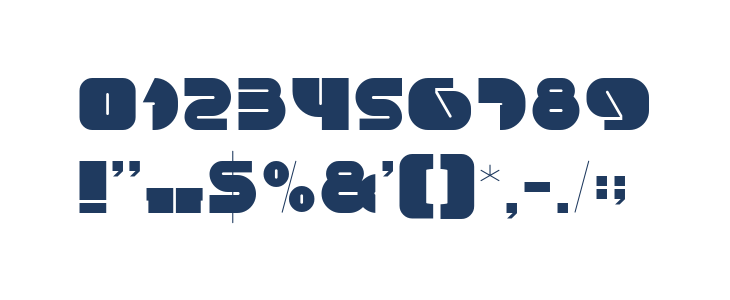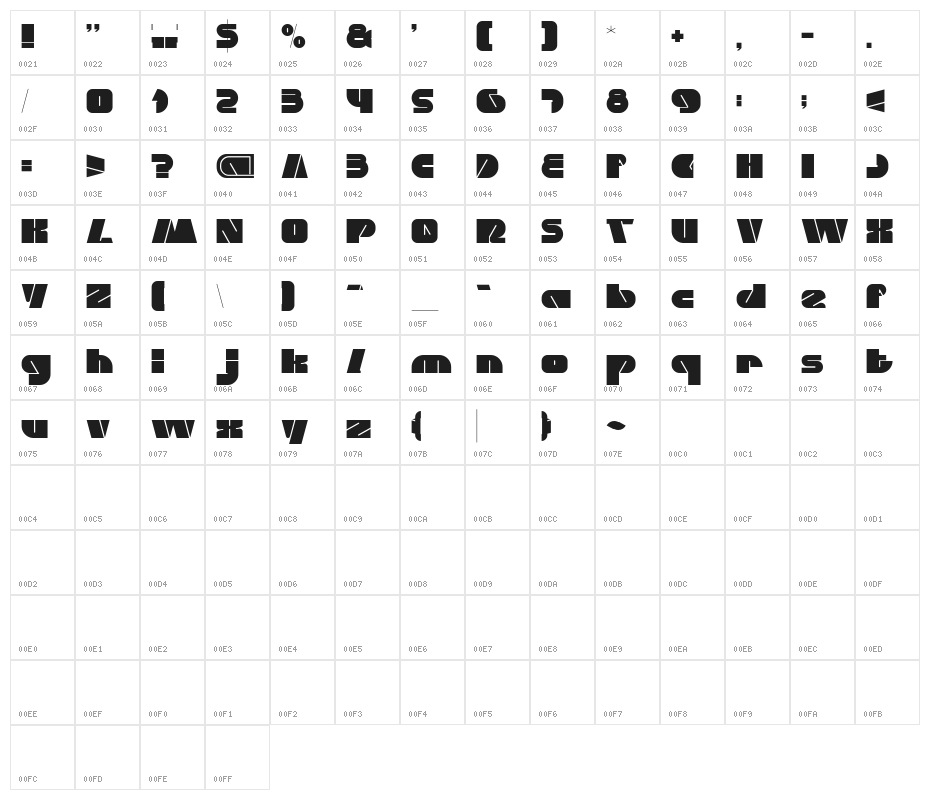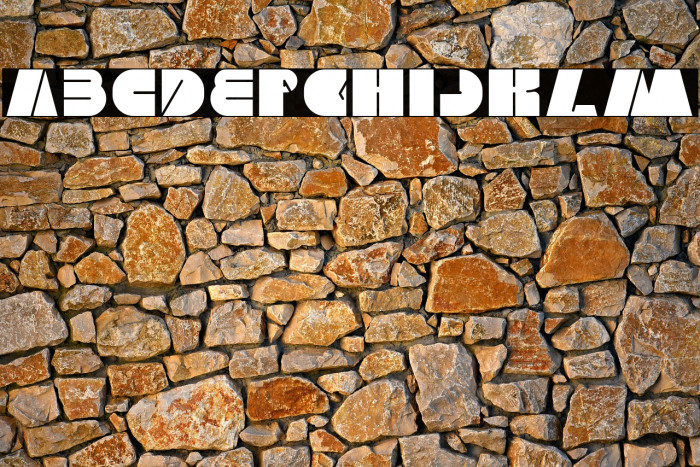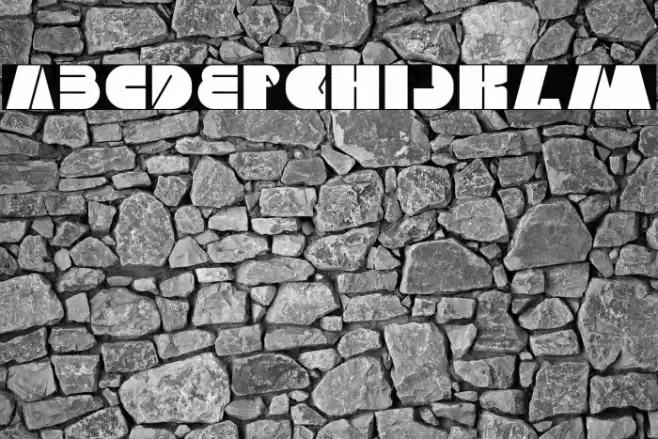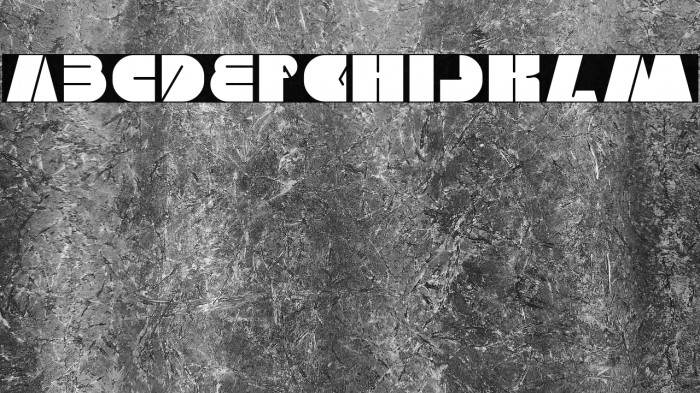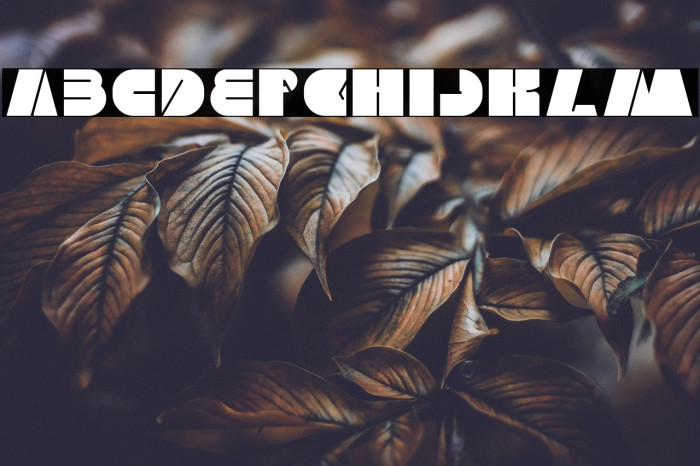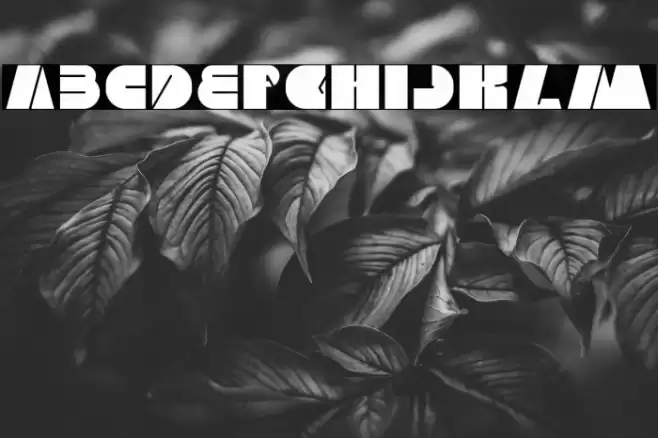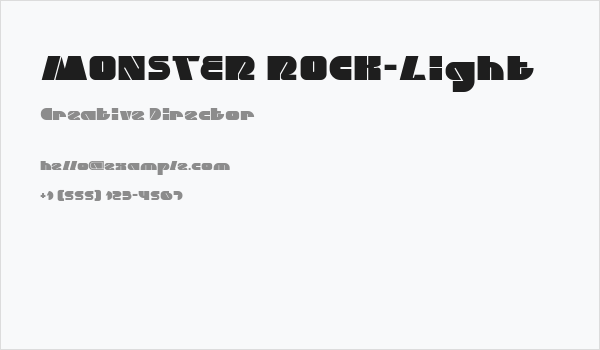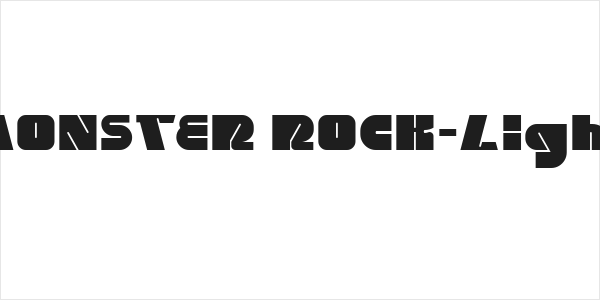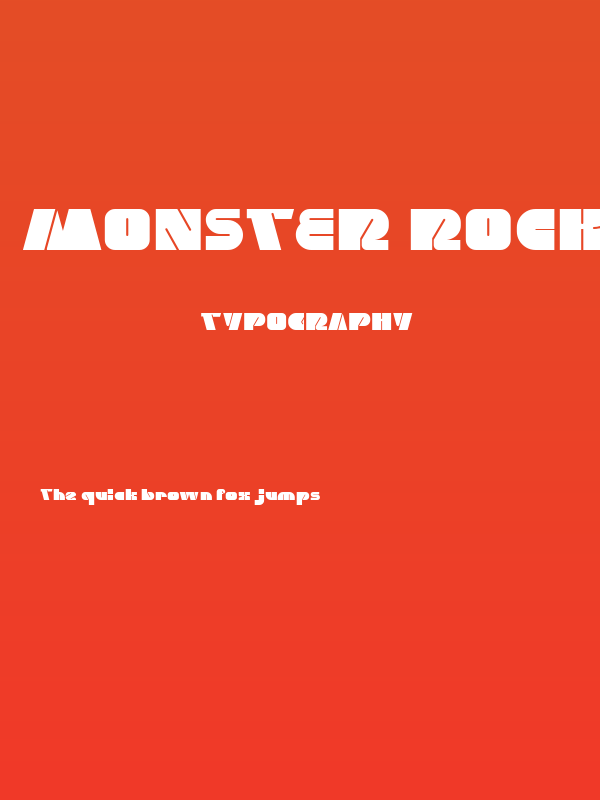
MONSTER ROCK-Light Font
MONSTER ROCK-Light Description
This font features a bold, geometric design with strong, angular shapes and a modern aesthetic. The characters are constructed with a combination of sharp edges and smooth curves, creating a dynamic and eye-catching appearance. The uppercase and lowercase letters maintain a consistent style, with the lowercase being slightly more rounded. Numbers and special characters follow the same bold and structured design, ensuring uniformity across all glyphs. The font's unique style makes it suitable for projects that require a strong visual impact.